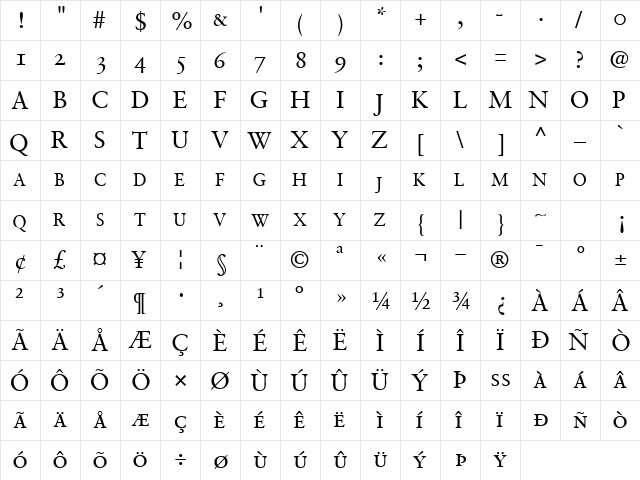
GaramondRetrospectiveOSSCapsSSK Regular Font Preview
GaramondRetrospectiveOSSCapsSSK Regular
Design Context for GaramondRetrospectiveOSSCapsSSK Typeface
GaramondRetrospectiveOSSCapsSSK wears its vintage influences proudly, with letterforms that recall mid-century signage, classic packaging, and nostalgia-driven design.
Font Pairing: Combine GaramondRetrospectiveOSSCapsSSK with a simple slab or neutral sans — period-accurate companions reinforce the vintage feel without competing for attention.
Pro Tip: Lean into GaramondRetrospectiveOSSCapsSSK's period character by pairing it with aged paper textures, muted colour palettes, and vintage illustration styles.